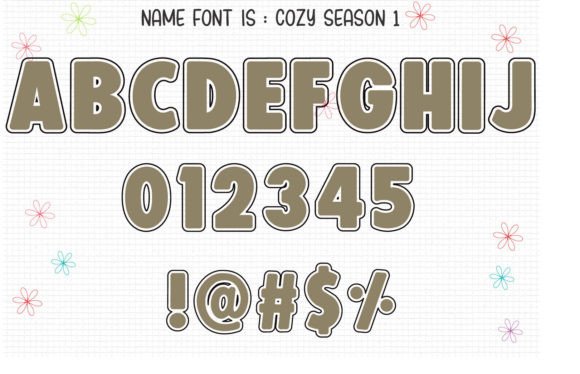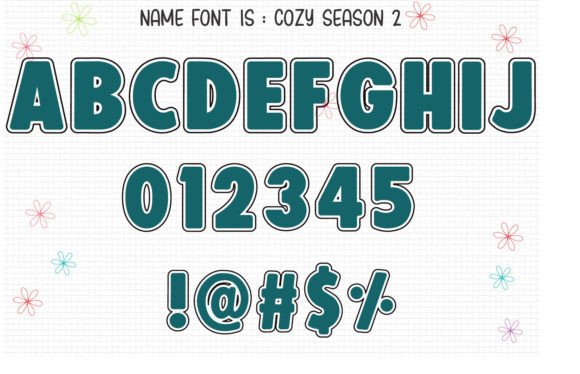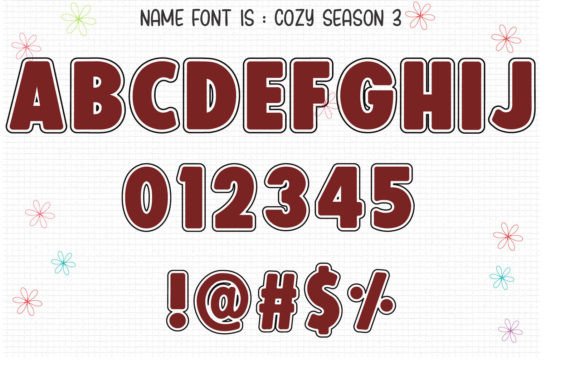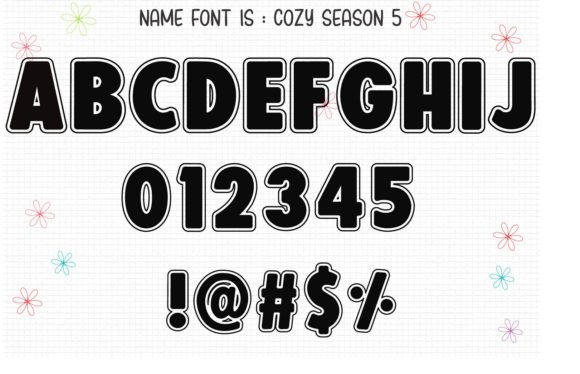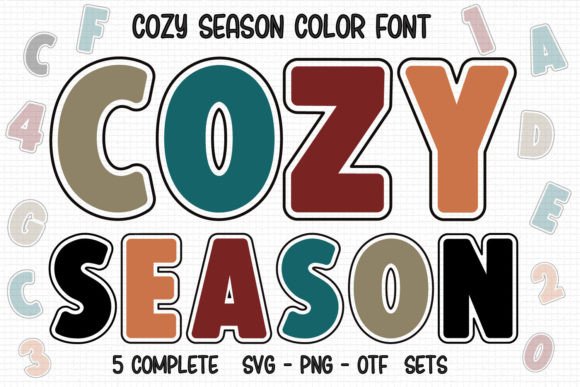
Introducing Cozy Season Font: The Perfect Addition to Your Designs
Are you looking for a font that exudes youth, joy, and playfulness? Look no further than Cozy Season Font! This incredibly cute and assertive color font is perfect for adding a touch of whimsy to your party invitations, gatherings, and designs. In this article, we’ll dive into the features and benefits of Cozy Season Font, as well as provide tips on how to use it in your designs.
What is Cozy Season Font?
Cozy Season Font is a unique and vibrant color font that is sure to make your designs stand out. Its playful and youthful vibe makes it perfect for designs that require a touch of fun and personality. Whether you’re creating party invitations, social media graphics, or craft projects, Cozy Season Font is the perfect addition to your design toolkit.
Key Features of Cozy Season Font
- Cute and Assertive Design: Cozy Season Font features a unique and playful design that is sure to capture the attention of your audience.
- Color Font: Unlike traditional fonts, Cozy Season Font comes in a range of colors, adding an extra layer of depth and visual interest to your designs.
Using Cozy Season Font in Your Designs
Cozy Season Font is incredibly versatile and can be used in a wide range of designs, including:
- Party Invitations: Add a touch of whimsy to your party invitations with Cozy Season Font.
- Gatherings and Events: Use Cozy Season Font to create eye-catching posters, flyers, and social media graphics for your events.
- Craft Projects: Cozy Season Font is perfect for crafters and makers, and can be used in a variety of projects, such as paper crafting, scrapbooking, and DIY signs.
Tips for Using Cozy Season Font
Here are a few tips for getting the most out of Cozy Season Font:
- Experiment with Colors: Cozy Season Font comes in a range of colors, so don’t be afraid to experiment and find the perfect combination for your design.
- Pair with Other Fonts: Cozy Season Font pairs well with other fonts, so try combining it with a sans-serif font for added visual interest.
- Use in Combination with Images: Cozy Season Font looks great when used in combination with images, so try adding it to your photos and graphics for added depth and visual interest.